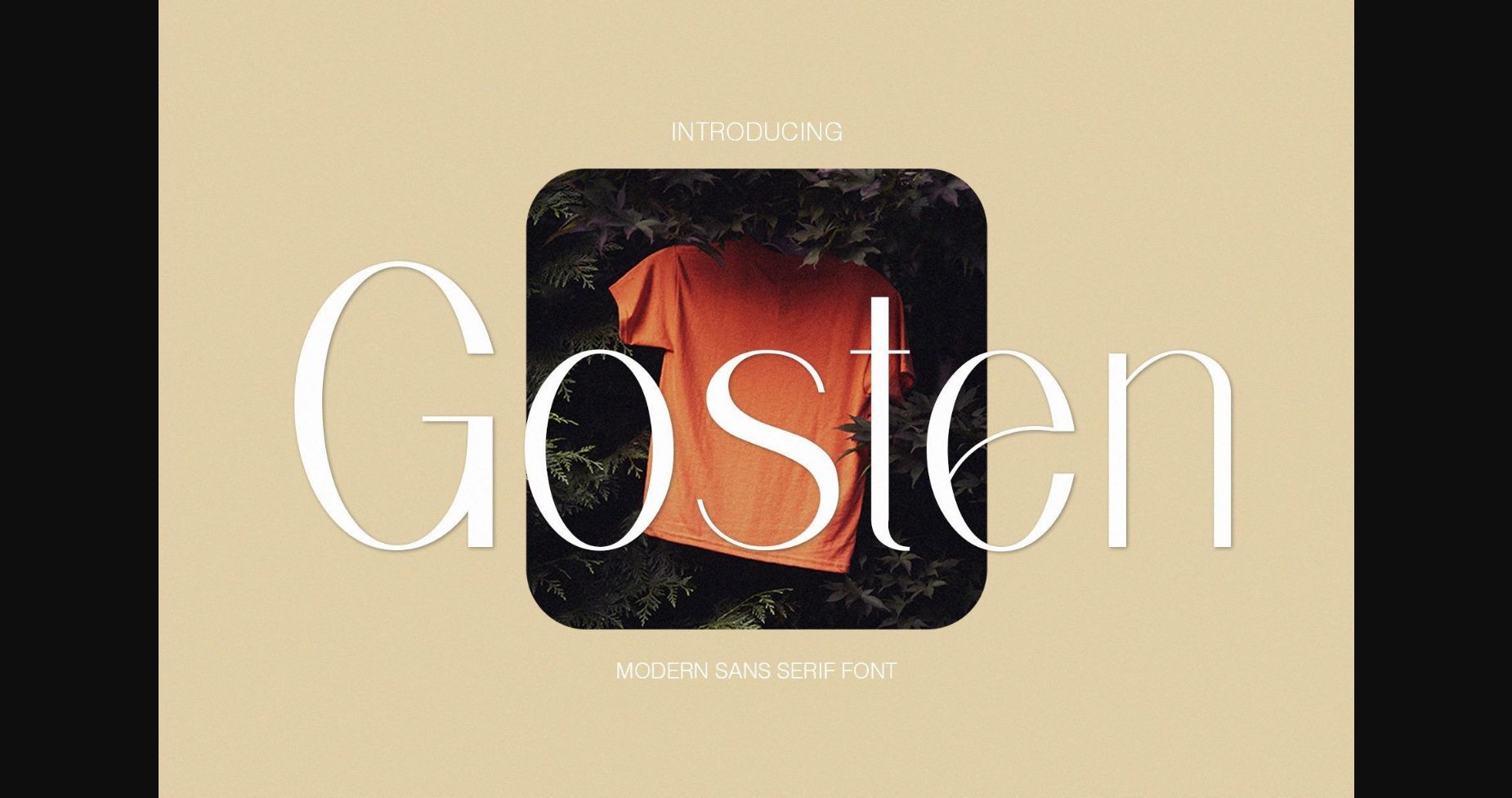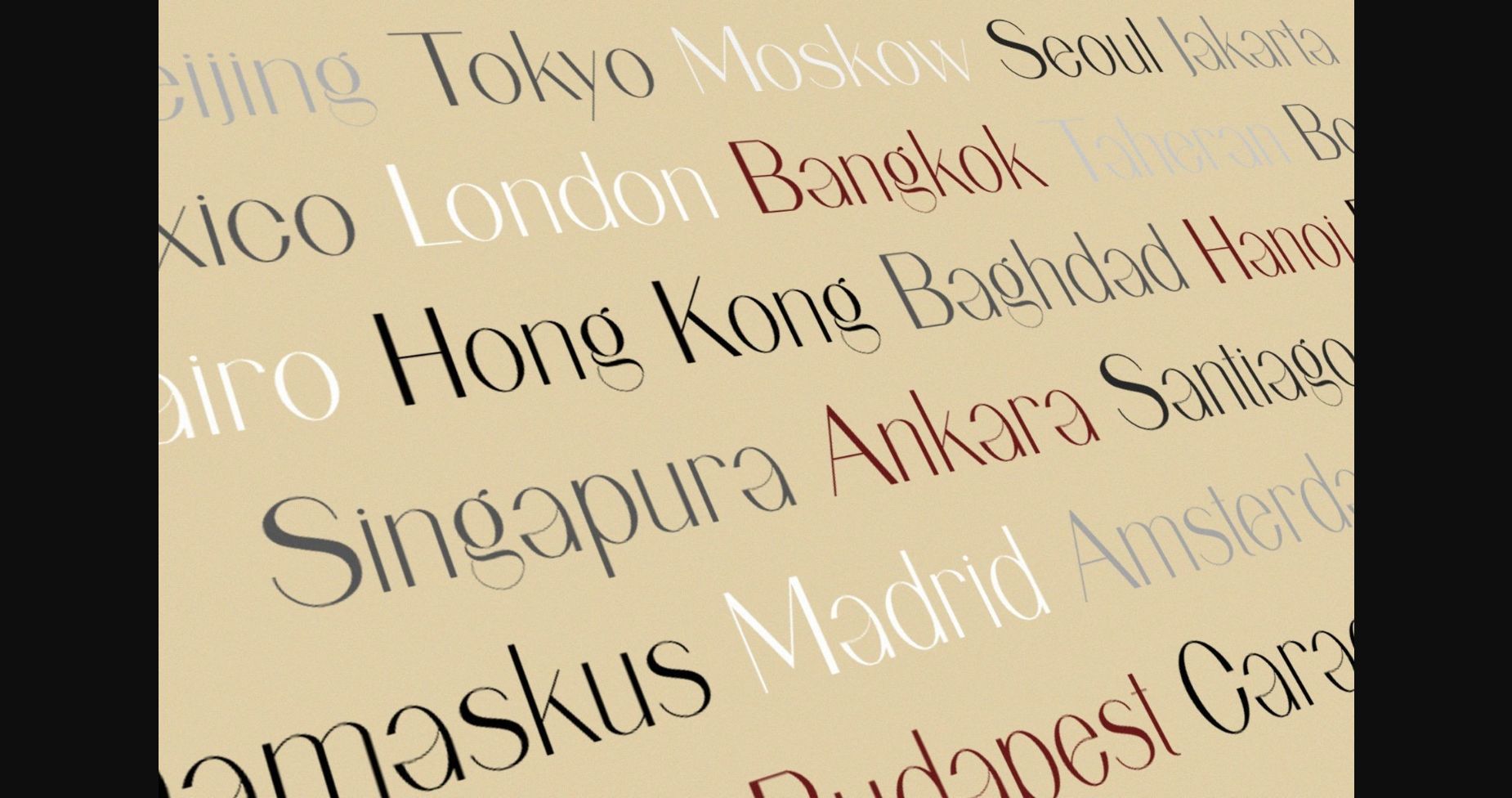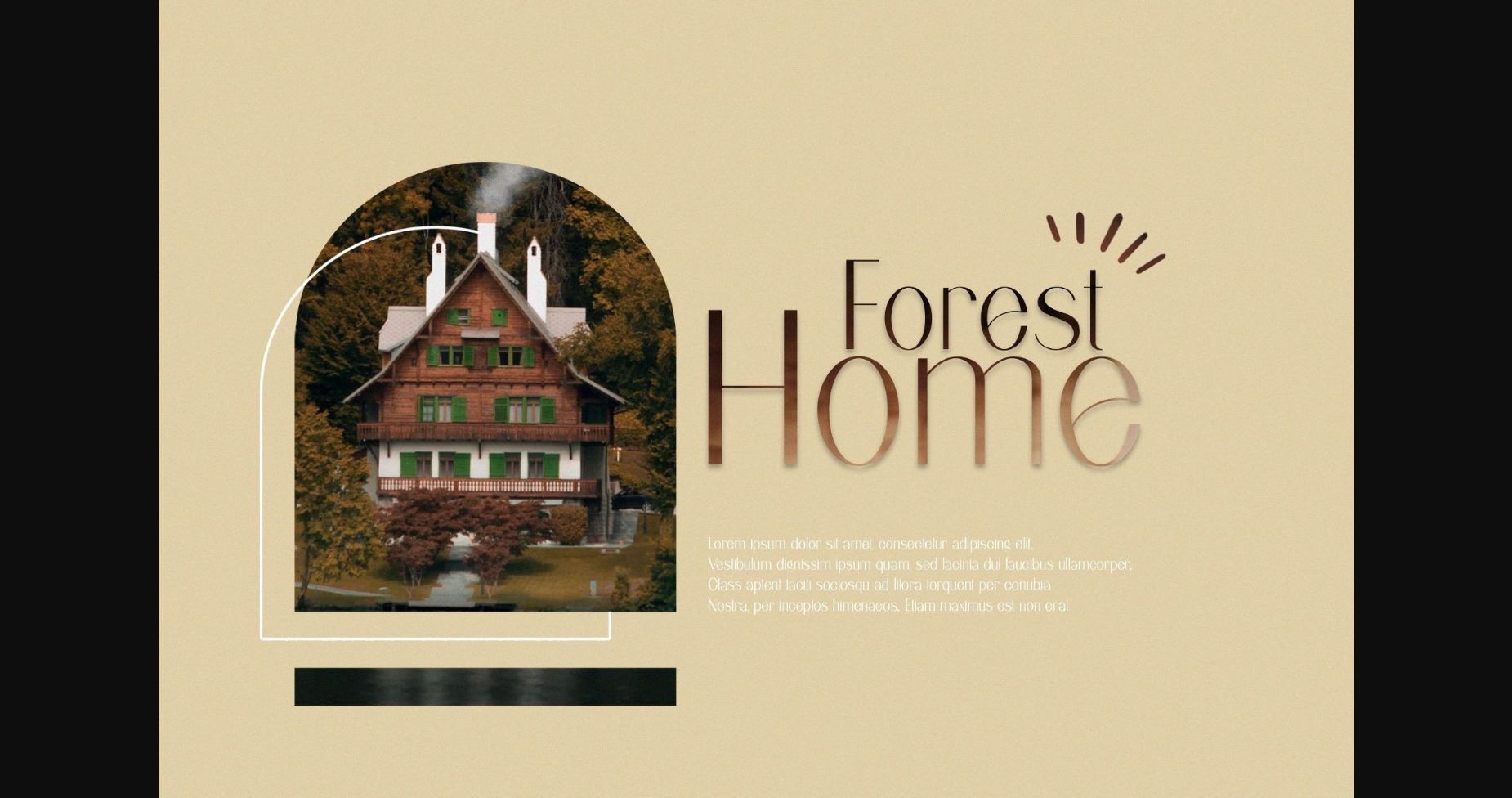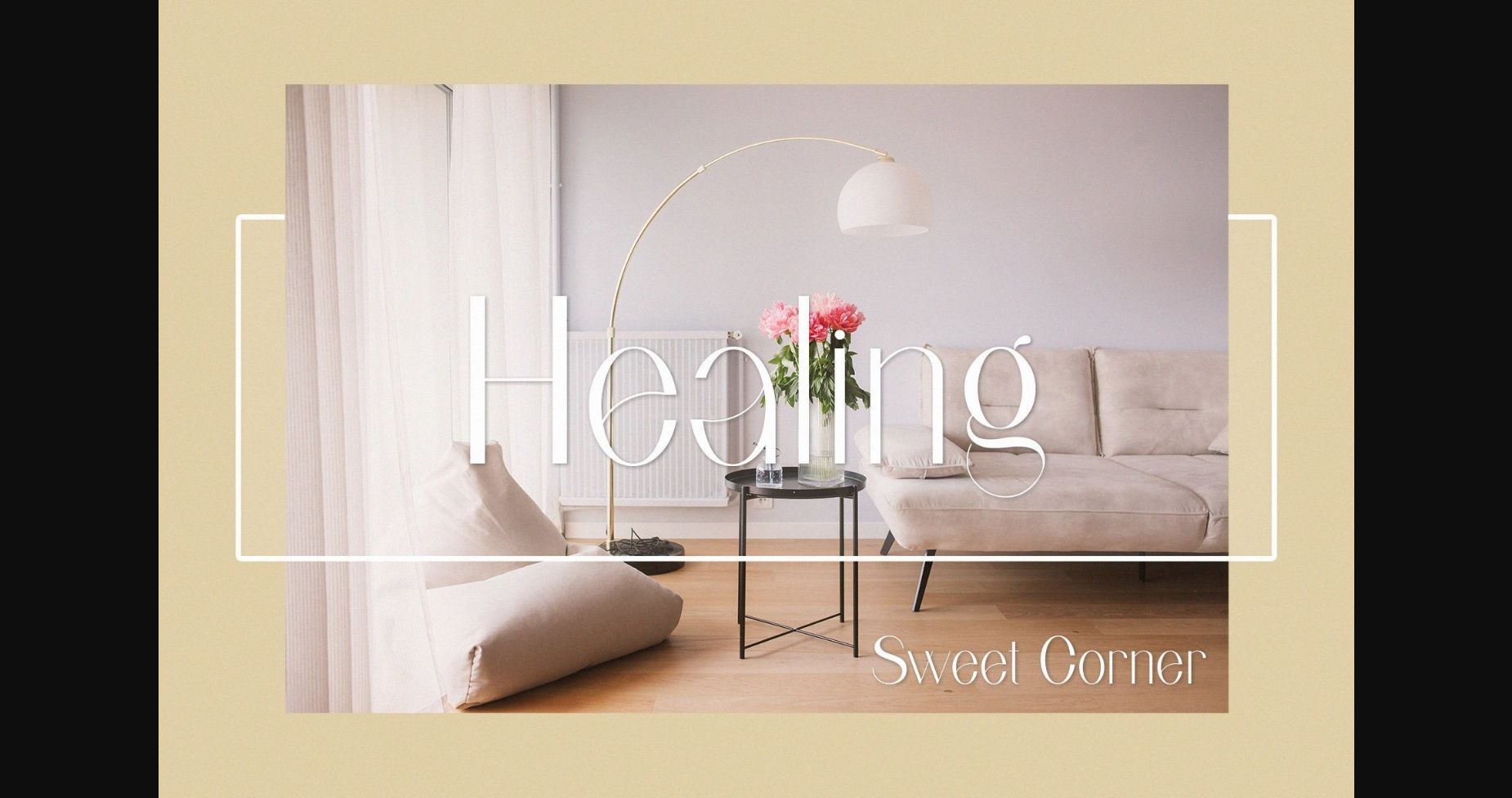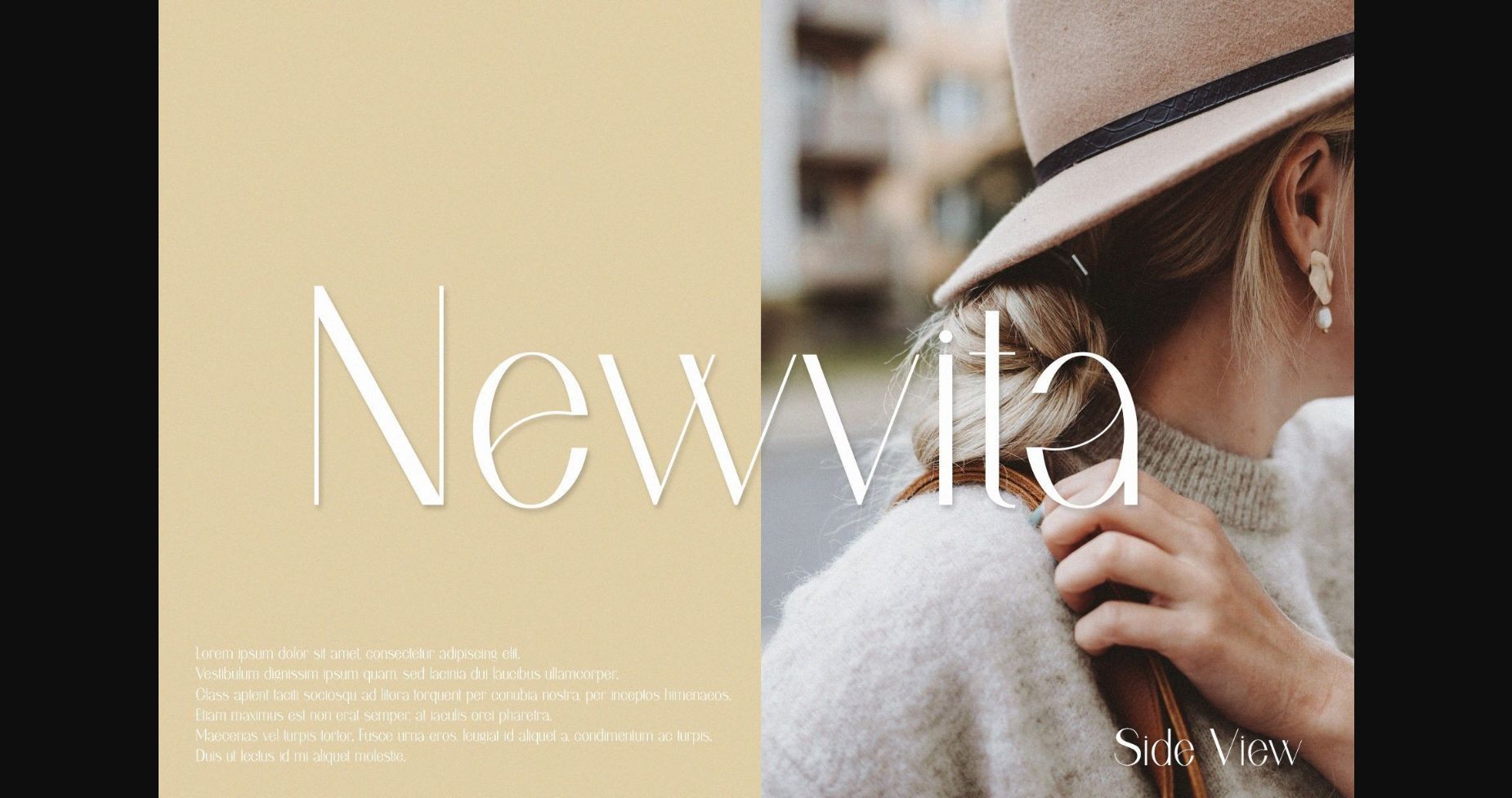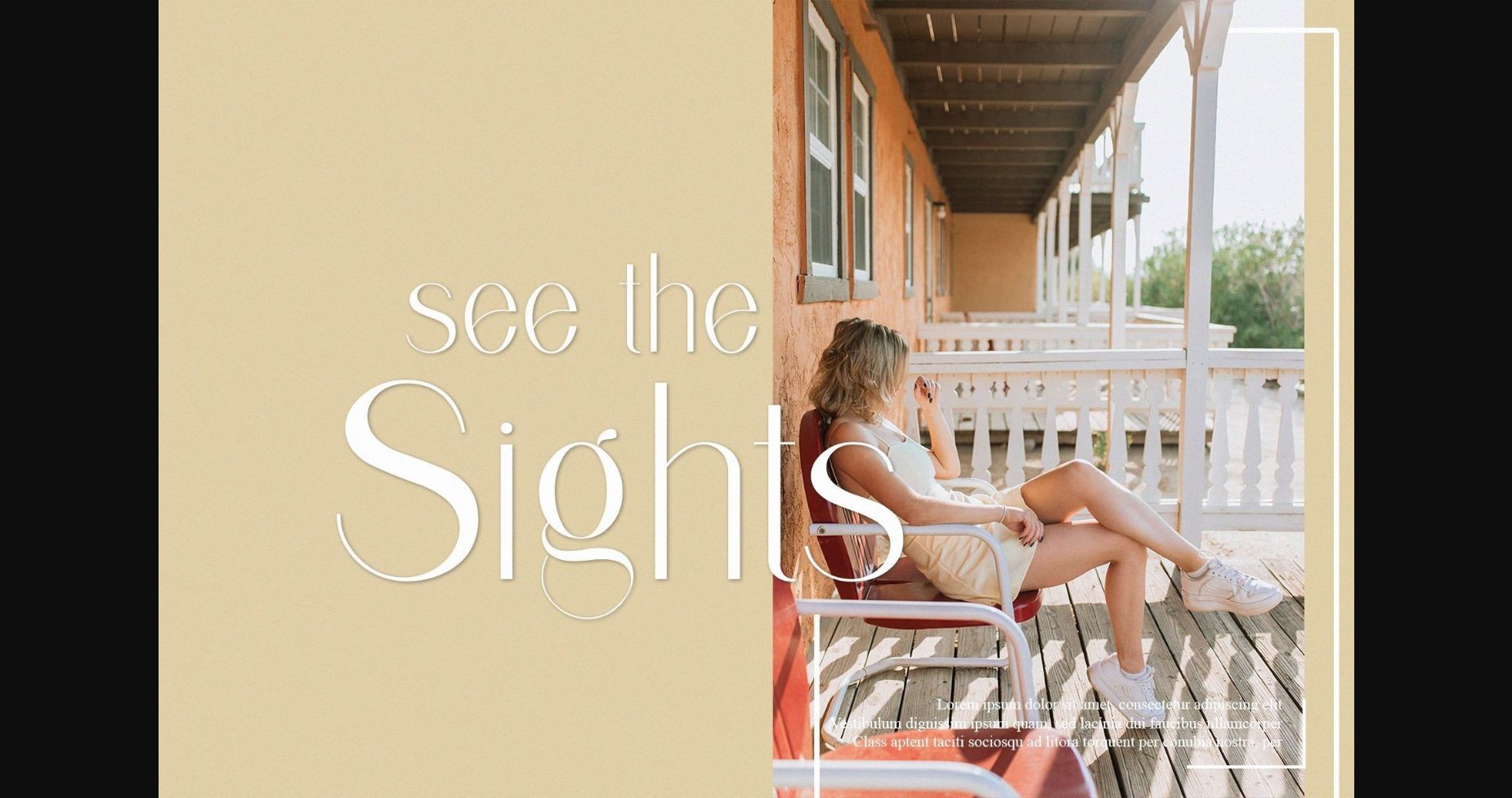
Gosten Font
About Gosten Font
Gosten is a sans serif with simple, clean, and visual elegance. Specially designed for elegant-themed projects, perfectly suitable for creating simple, clean, lifestyle designs such as logos, titles, and magazine and more.